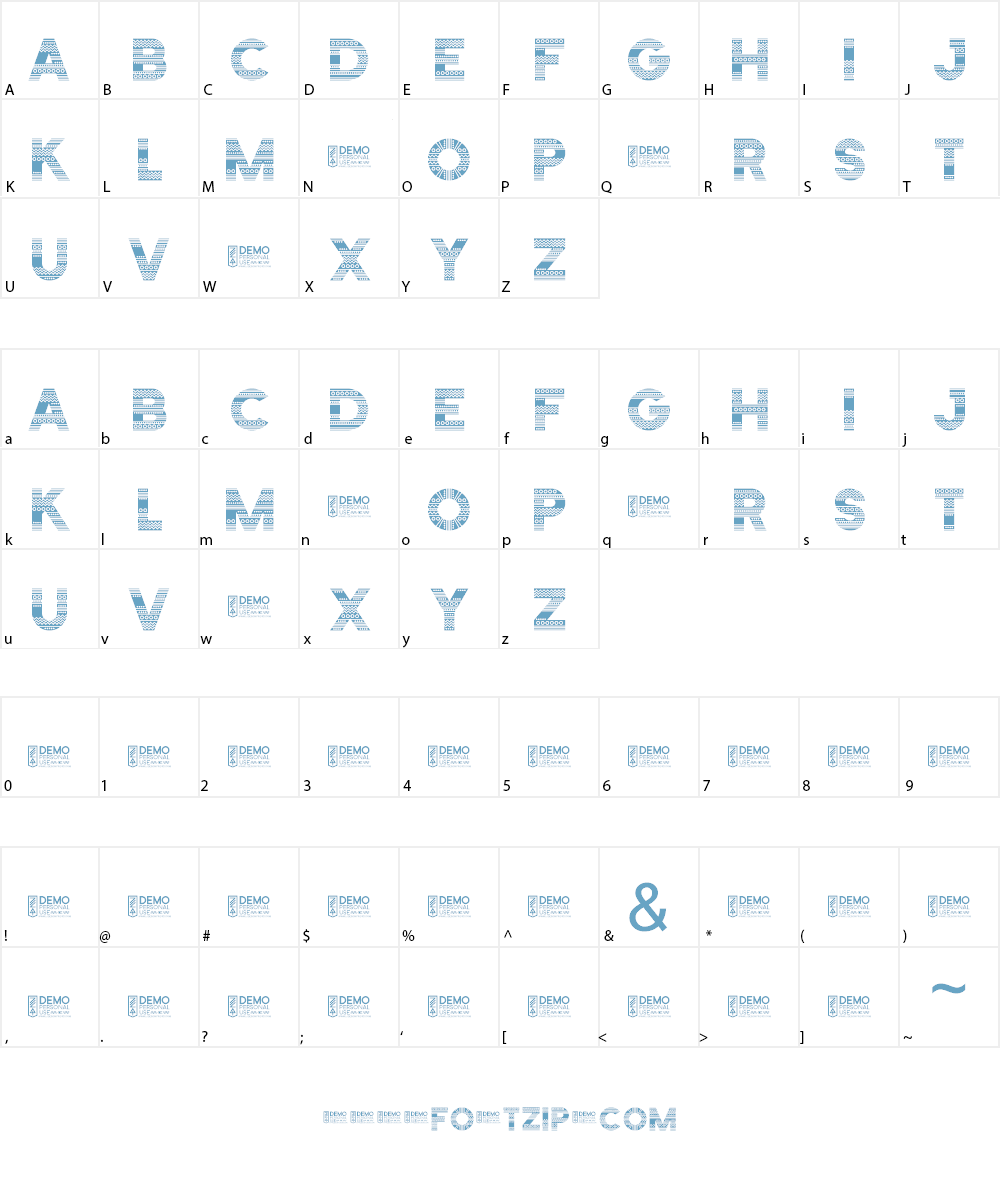
• ZILAP AFRO TYPEFACE ~ Source inspired by Afro culture, music, customs, art and graphic expressions. This typographic project has a lot of personality and style, so it should be used, creatively in all kinds of print and visual projects. •Zilap Afro "The expression of a Generation"